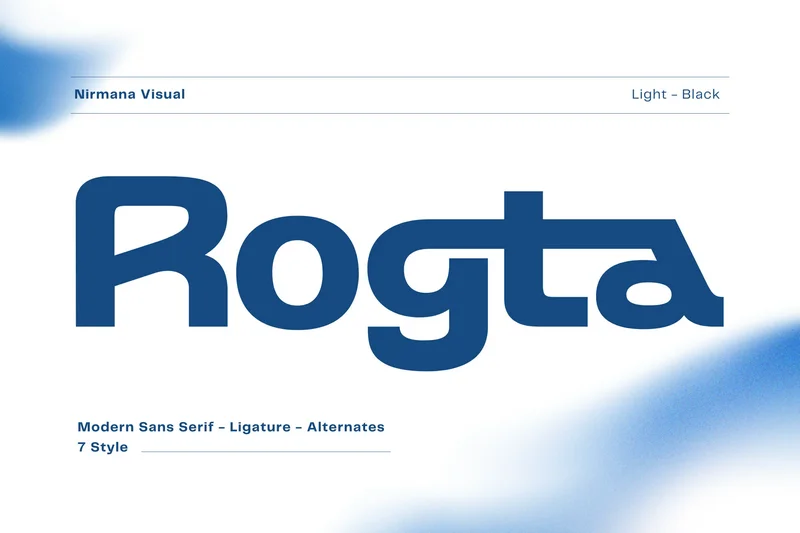
Rogta – Logo Branding Corporate font
Modern Luxury Logo – Rogta
Rogta offers beautiful typographic harmony for a diversity of design projects, including logos & branding, social media posts, advertisements & product designs.